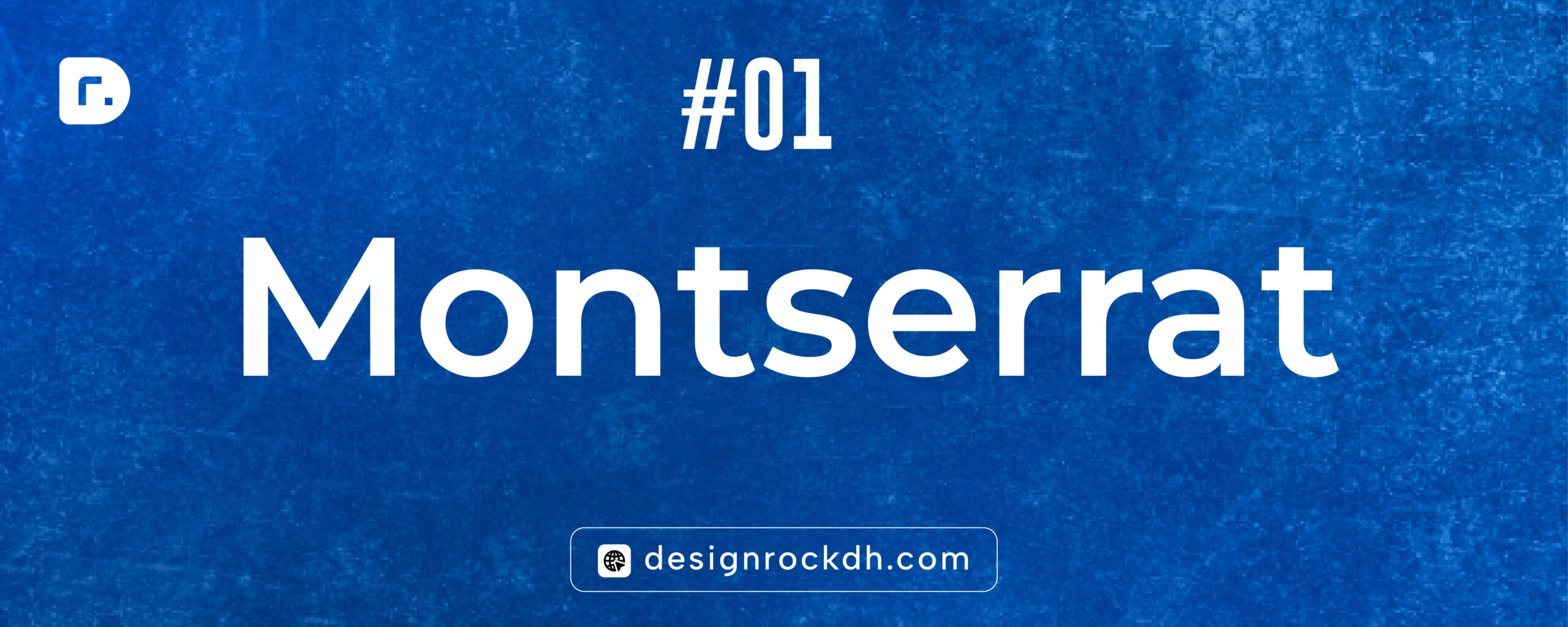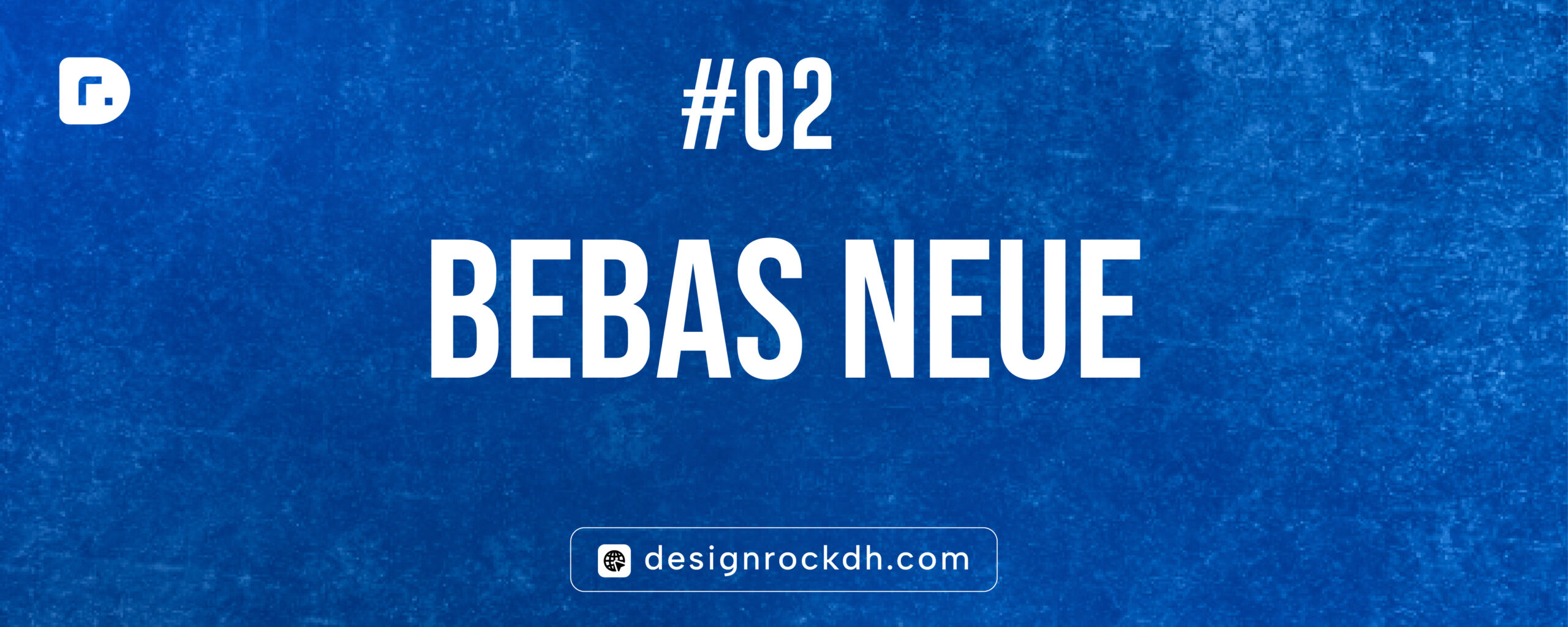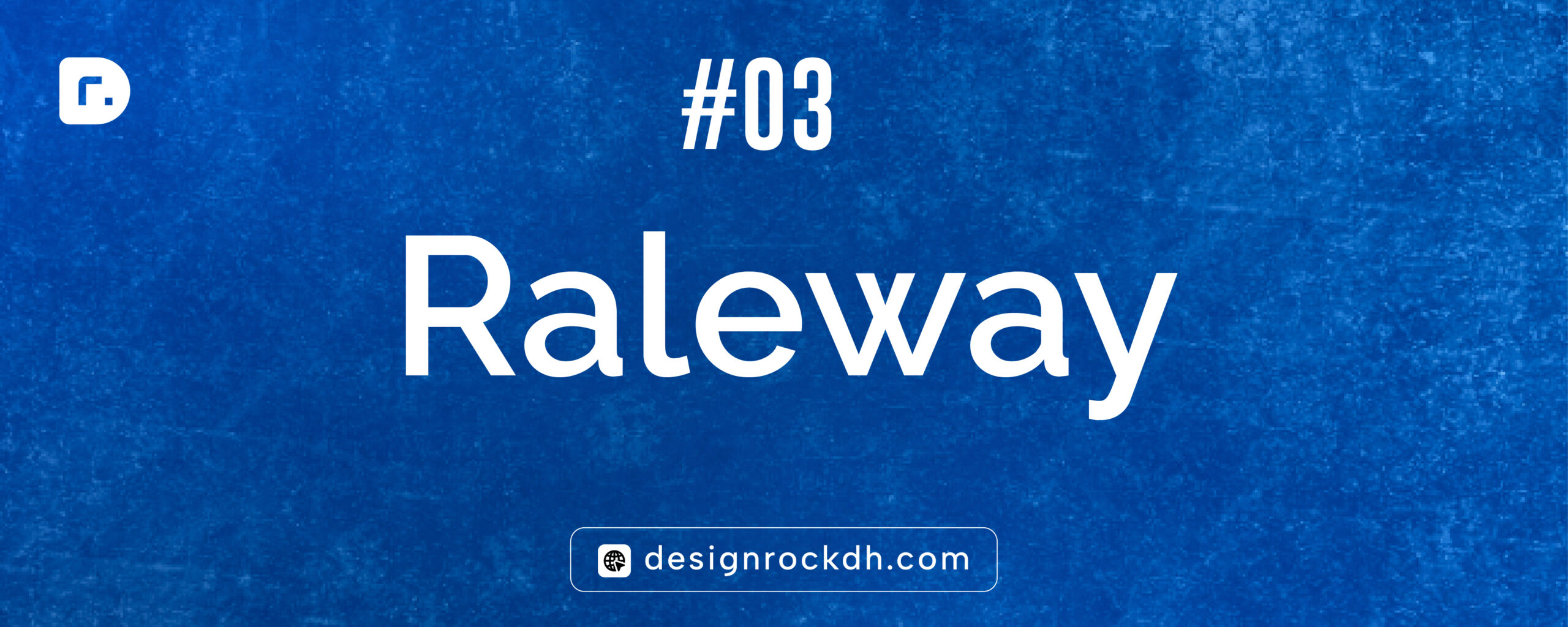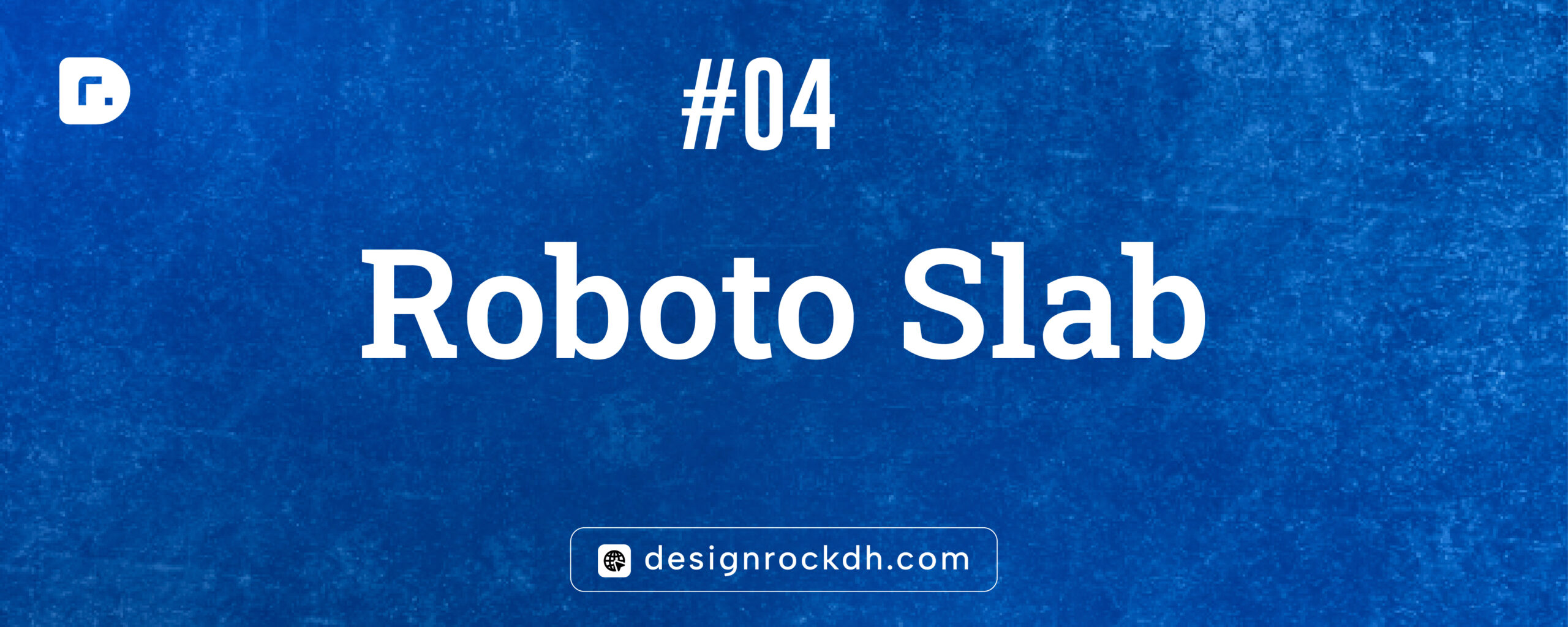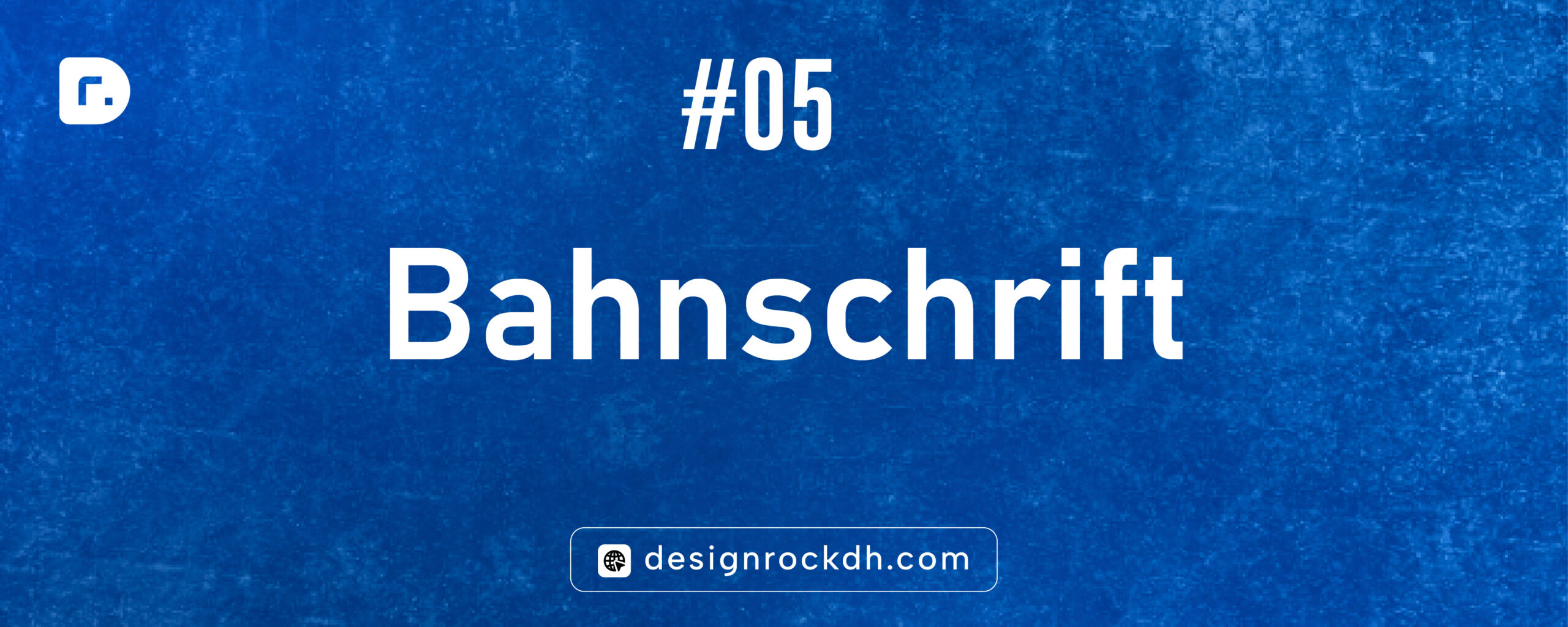
Easy-to-Read Fonts for Design: Clear, Modern, and Highly Legible Typeface
Readability is one of the most important—but often overlooked—elements of good design. No matter how visually appealing a layout is, if the text is difficult to read, the message fails. Easy-to-read fonts prioritize clarity, balance, and spacing without sacrificing style, making them essential for both digital and print design.
These fonts feature well-proportioned letterforms, clear distinctions between characters, and comfortable spacing. As a result, they remain legible across different screen sizes, resolutions, and print formats. From websites and mobile apps to branding materials and editorial layouts, readable fonts help users absorb information effortlessly.
Below are five easy-to-read fonts for design that combine functionality with modern aesthetics.
1. Montserrat
Category: Sans-Serif
Best for: Web design, branding, UI, headings
Montserrat is a highly popular geometric sans-serif font known for its clean structure and excellent legibility. Its open letterforms and consistent spacing make it easy to read at both large and small sizes. Designers often use Montserrat for modern brands and digital interfaces because it feels professional yet friendly.
Why it’s easy to read:
• Clear letter shapes
• Balanced spacing
• Works well on screens and in print
2. Bebas Neue
Category: Display Sans-Serif
Best for: Headlines, posters, banners, titles
Bebas Neue is a condensed, all-caps font that shines in headings and short text. While it’s not ideal for long paragraphs, its simplicity and uniform stroke width make it extremely readable in titles and callouts.
Why it’s easy to read:
• Simple, straight letterforms
• Excellent clarity at large sizes
• Strong visual hierarchy for headlines
3. Raleway
Category: Sans-Serif
Best for: Editorial design, websites, branding
Raleway is an elegant sans-serif font with refined proportions. It offers a clean and airy appearance that improves reading comfort, especially in body text and subheadings. Its versatility makes it a favorite for both print and digital layouts.
Why it’s easy to read:
• Smooth curves and consistent strokes
• Comfortable letter spacing
• Works well across different weights
4. Roboto Slab
Category: Slab Serif
Best for: Articles, blogs, UI text, long-form content
Roboto Slab combines the stability of serif fonts with modern readability. Its wide characters and open counters help reduce eye strain, making it an excellent choice for longer reading experiences.
Why it’s easy to read:
• Strong character distinction
• Excellent line readability
• Optimized for screens
5. Bahnschrift
Category: Sans-Serif
Best for: Corporate design, technical documents, interfaces
Bahnschrift is a clean, functional typeface designed with clarity in mind. It performs exceptionally well in professional and technical environments where accuracy and legibility are critical.
Why it’s easy to read:
• Neutral, distraction-free design
• Clear differentiation between characters
• Maintains readability at small sizes
Choosing an easy-to-read font improves more than just aesthetics—it improves communication. Fonts like Montserrat, Raleway, and Roboto Slab help users process information faster and more comfortably, whether they’re reading on a mobile screen or a printed page.
When selecting a font, always test it at different sizes and contexts. A truly readable typeface remains clear, consistent, and visually appealing across all use cases.